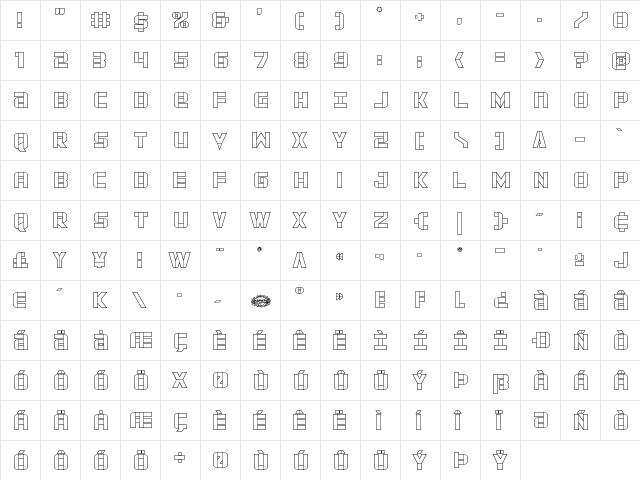
Force Commander Outline Regular
Design Context for Force Commander Outline Typeface
Force Commander Outline brings high-energy athletic personality to the page — its confident, muscular forms are built for impact.
Built for sports team identities, athletic apparel, event posters, and high-energy promotional material.
Pro Tip: Force Commander Outline thrives on contrast — try it large, bold, and tight against a clean background for maximum visual impact.